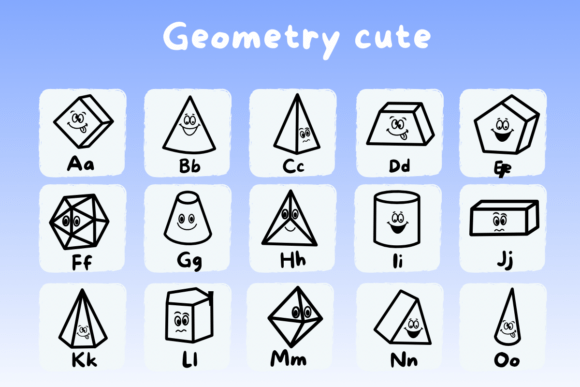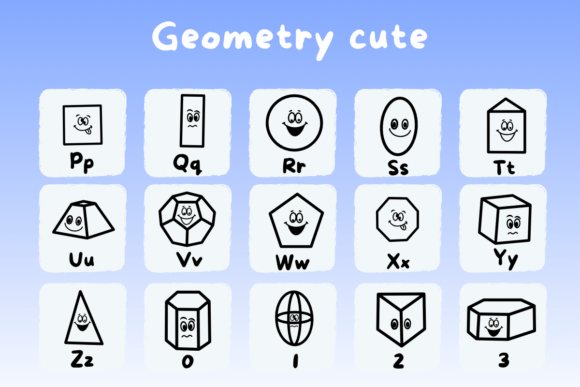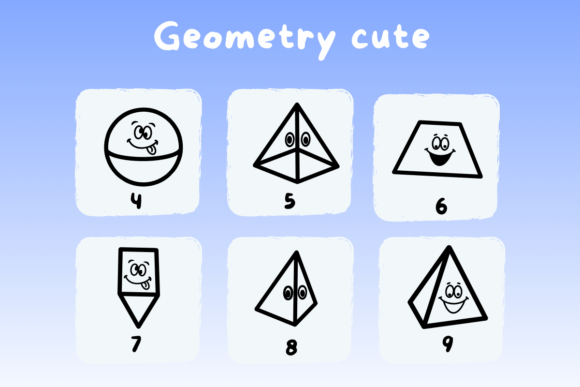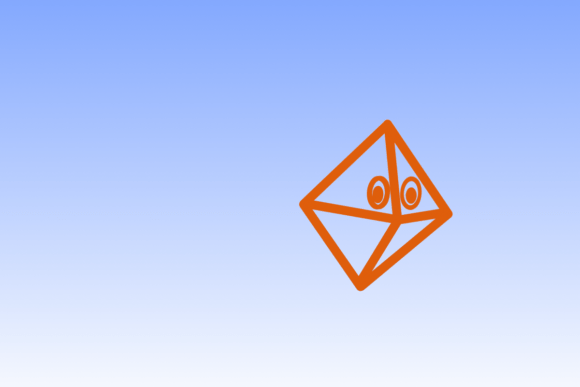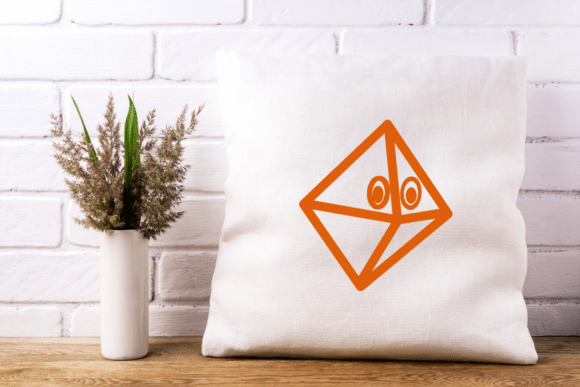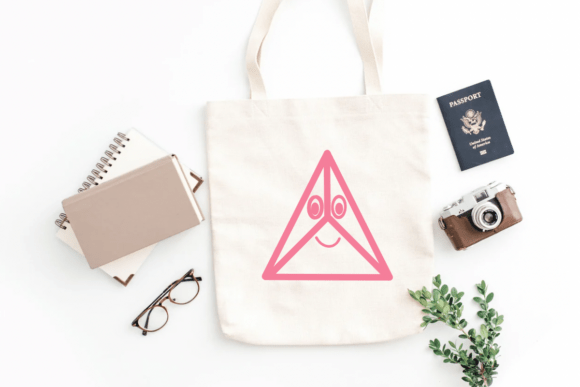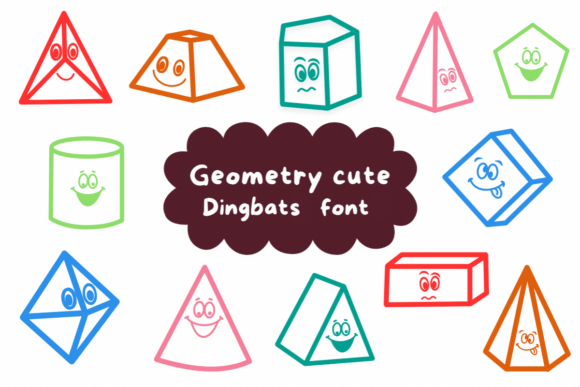
Introducing Geometry Cute Font: Adding a Touch of Fun to Learning and Design
Are you looking for a playful and creative way to teach geometry concepts to kids or add a personal touch to your designs? Look no further than the Geometry Cute Font, a delightful dingbats font that brings adorable geometric characters to life with expressive faces. In this article, we’ll explore the features and benefits of this charming font, perfect for children’s learning materials, school projects, classroom decor, and educational printables.
What is Geometry Cute Font?
Geometry Cute is a unique and engaging font that combines basic geometry shapes with cute and expressive faces. Each character in the font is carefully designed to convey a sense of personality and charm, making it perfect for designs that require a touch of whimsy and fun. The font features a range of geometric shapes, including circles, squares, triangles, and more, each with its own distinct facial expression.
Key Features of Geometry Cute Font
- Playful Dingbats Font: Geometry Cute is a dingbats font, which means it’s comprised of symbols and shapes rather than traditional letters and numbers.
- Adorable Geometric Characters: Each character in the font is a geometric shape with a cute and expressive face, adding a touch of personality to your designs.
- Perfect for Children’s Learning Materials: The font is ideal for educational materials, such as worksheets, activity sheets, and learning guides, that require a fun and engaging approach to teaching geometry concepts.
- Reinforces Basic Geometry Concepts: By using Geometry Cute Font in your designs, you can help kids learn and recognize basic geometry shapes in a fun and interactive way.
Uses for Geometry Cute Font
Geometry Cute Font is a versatile font that can be used in a variety of design projects, including:
- Children’s Learning Materials: Create engaging worksheets, activity sheets, and learning guides that teach geometry concepts in a fun and interactive way.
- School Projects: Add a touch of personality to school projects, such as presentations, posters, and brochures, with the Geometry Cute Font.
- Classroom Decor: Use the font to create fun and educational classroom decor, such as bulletin boards, posters, and charts.
- Educational Printables: Create printable resources, such as math worksheets, geometry puzzles, and activity sheets, that are both fun and educational.
Benefits of Using Geometry Cute Font
By using Geometry Cute Font in your designs, you can:
- Add a Touch of Fun and Creativity: The font’s playful and whimsical design adds a touch of fun and creativity to your designs, making them more engaging and interactive.
- Reinforce Learning Concepts: The font’s focus on geometry shapes and concepts makes it an ideal tool for teaching and reinforcing learning concepts in a fun and interactive way.
- Enhance Visual Appeal: The font’s colorful and expressive characters add visual appeal to your designs, making them more attention-grabbing and engaging.
Tips for Using Geometry Cute Font
Here are some tips for getting the most out of Geometry Cute Font:
- Experiment with Different Colors: Try using different colors and color combinations to add visual interest and appeal to your designs.
- Mix and Match Characters: Mix and match different characters in the font to create unique and engaging designs.
- Use in Combination with Other Fonts: Use Geometry Cute Font in combination with other fonts to create visually appealing and engaging designs.
Geometry Cute Font is a unique and engaging font that’s perfect for designers and crafters looking to add a touch of fun and creativity to their designs. With its adorable geometric characters and expressive faces, this font is ideal for children’s learning materials, school projects, classroom decor, and educational printables. By using Geometry Cute Font, you can add a touch of personality and whimsy to your designs while reinforcing basic geometry concepts. So why not give it a try and see the difference it can make in your designs?